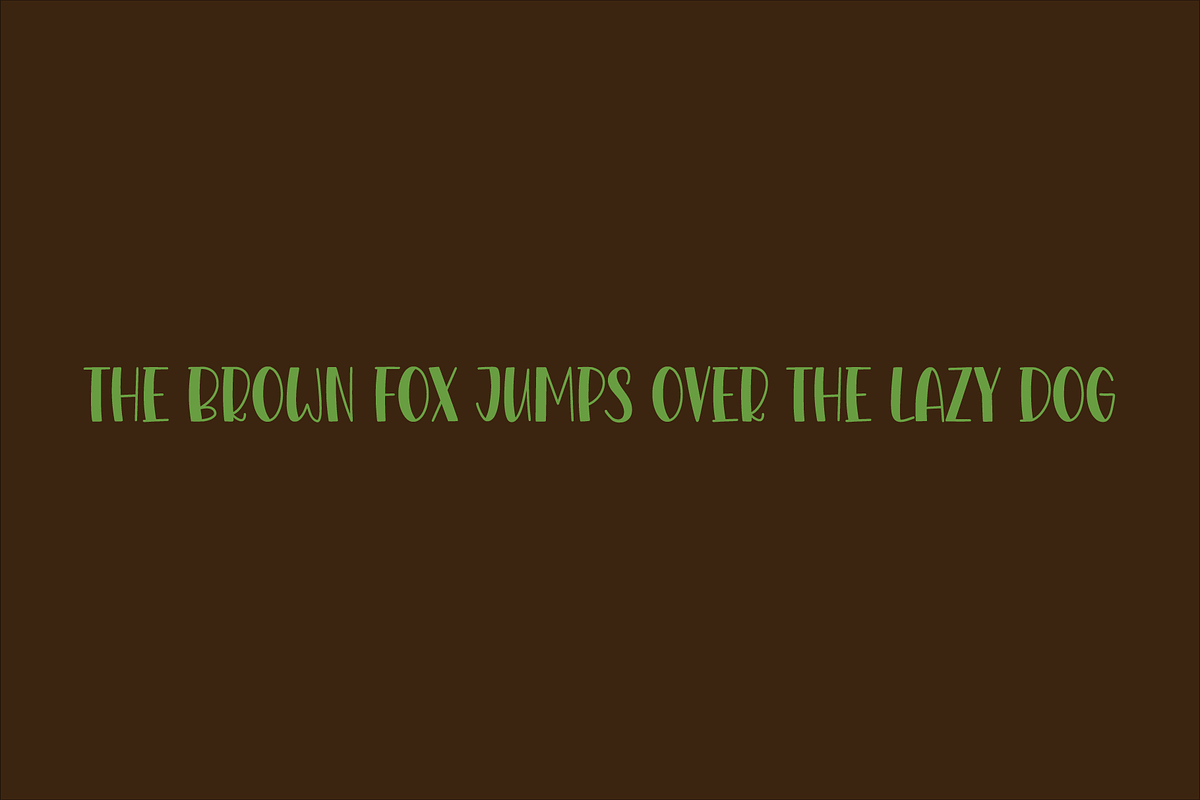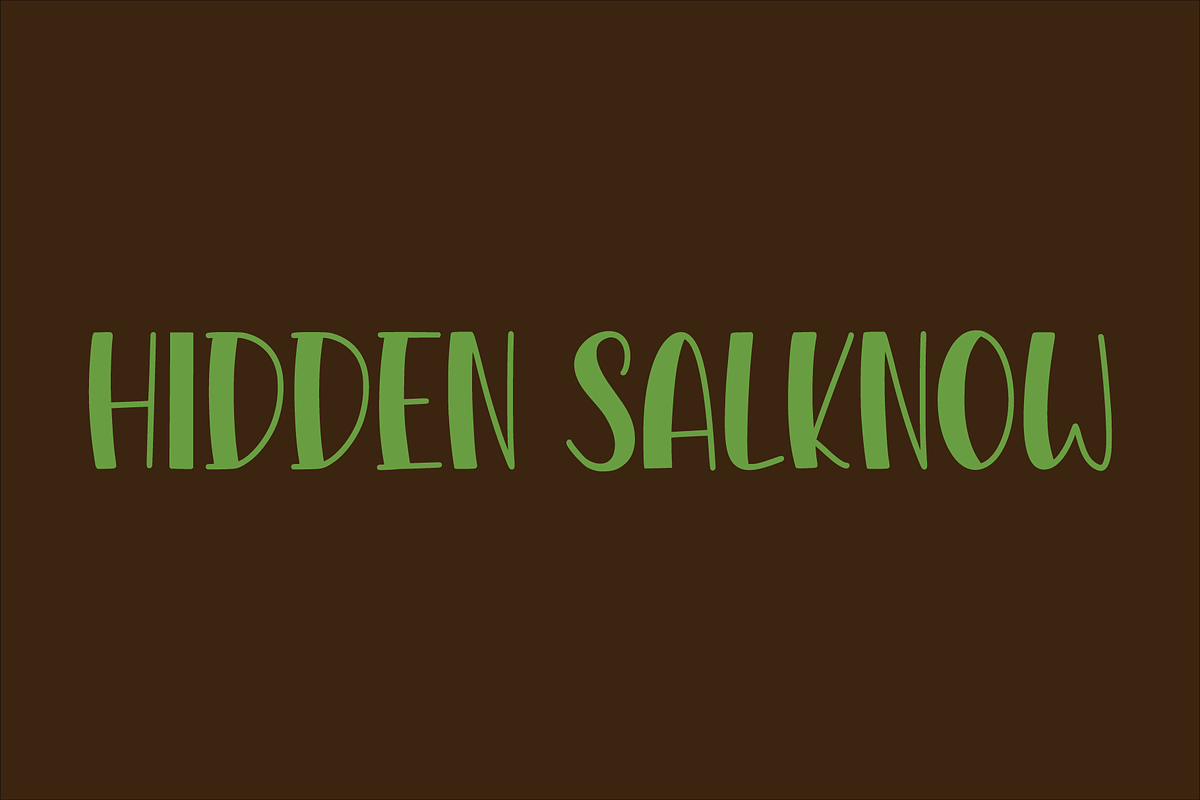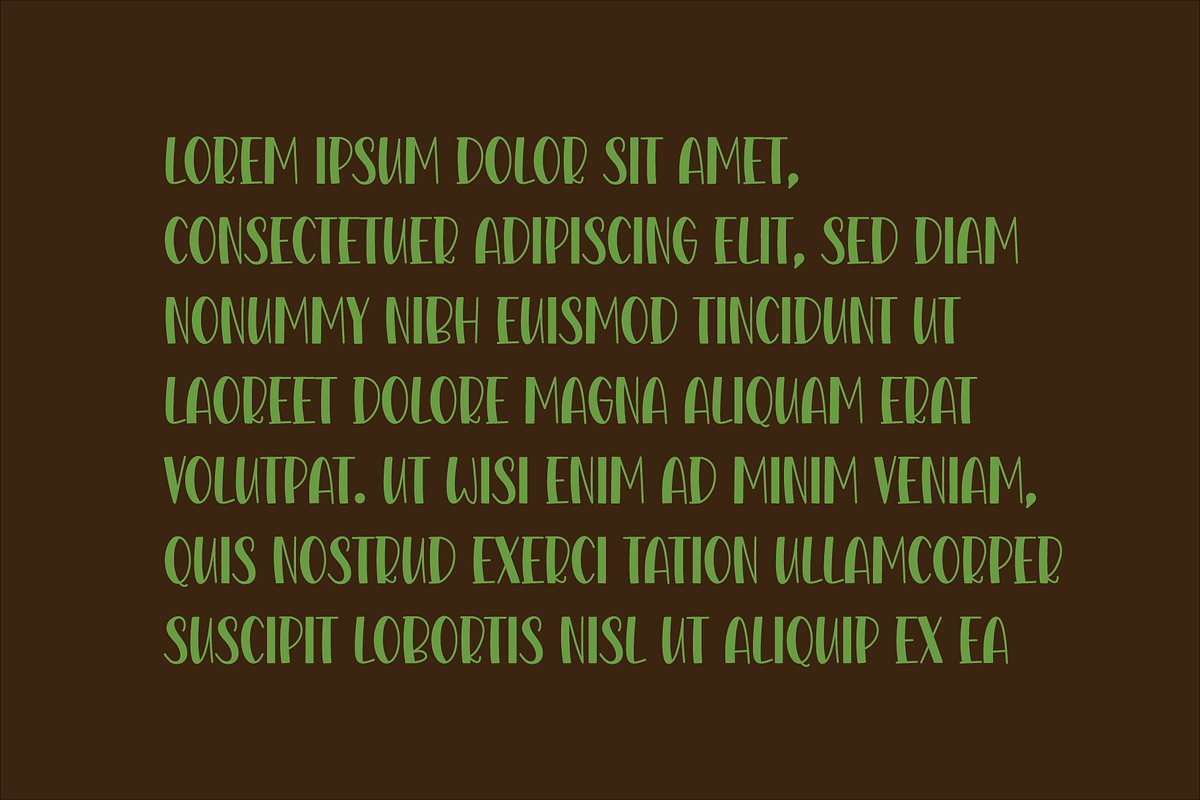
Hidden Salknow
Hidden Salknow is a delightful handwritten font that captures a playful spirit with its large, eye-catching letters. Designed with a light weight, this font brings a touch of whimsy to any project without overwhelming the design.
The playful style of Hidden Salknow is highlighted by its rounded shapes, giving each character a friendly and approachable feel. Despite its lightweight, the high contrast in the letters ensures excellent readability and visual appeal, making it stand out in various applications. The consistent letter proportions contribute to a harmonious and balanced appearance. In addition, enjoy the features here.
Hidden Salknow fits in headlines, logos, posters, flyers, branding materials, print media, editorial